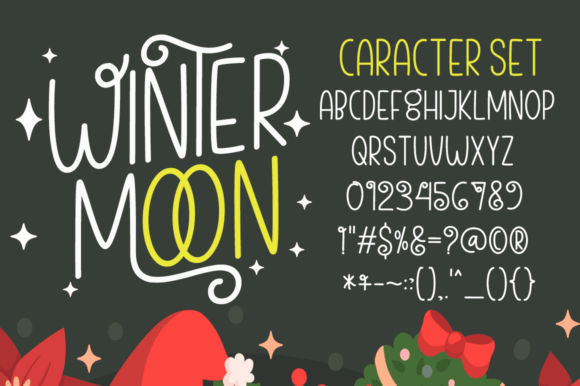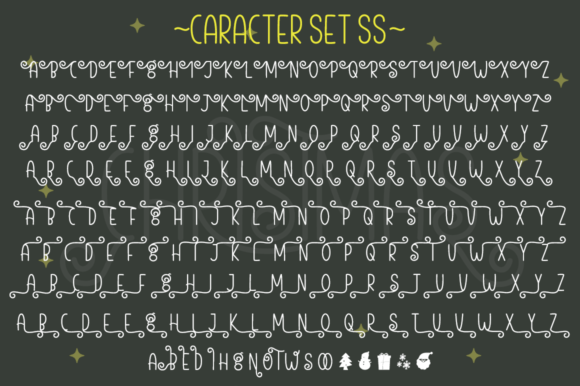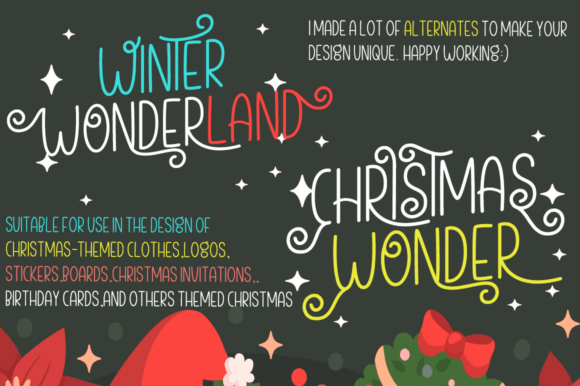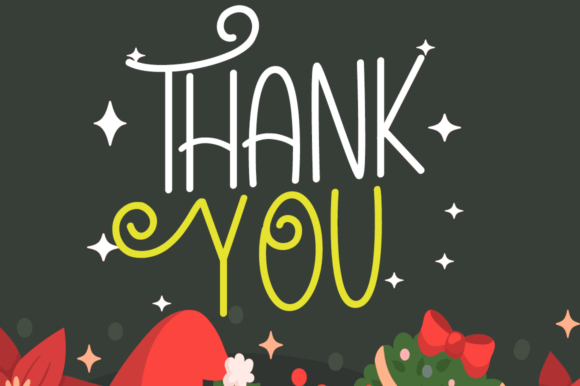
Christmas Font
The Christmas font is made as good as possible with lots of alternates so you can be creative in designing. This font is suitable for any season, but the Christmas theme fits best. It was made as smooth as possible so that it doesn’t break – it can be made into t-shirts, stickers, and others. This font is PUA encoded, which means you can access all of the glyphs and swashes with ease!